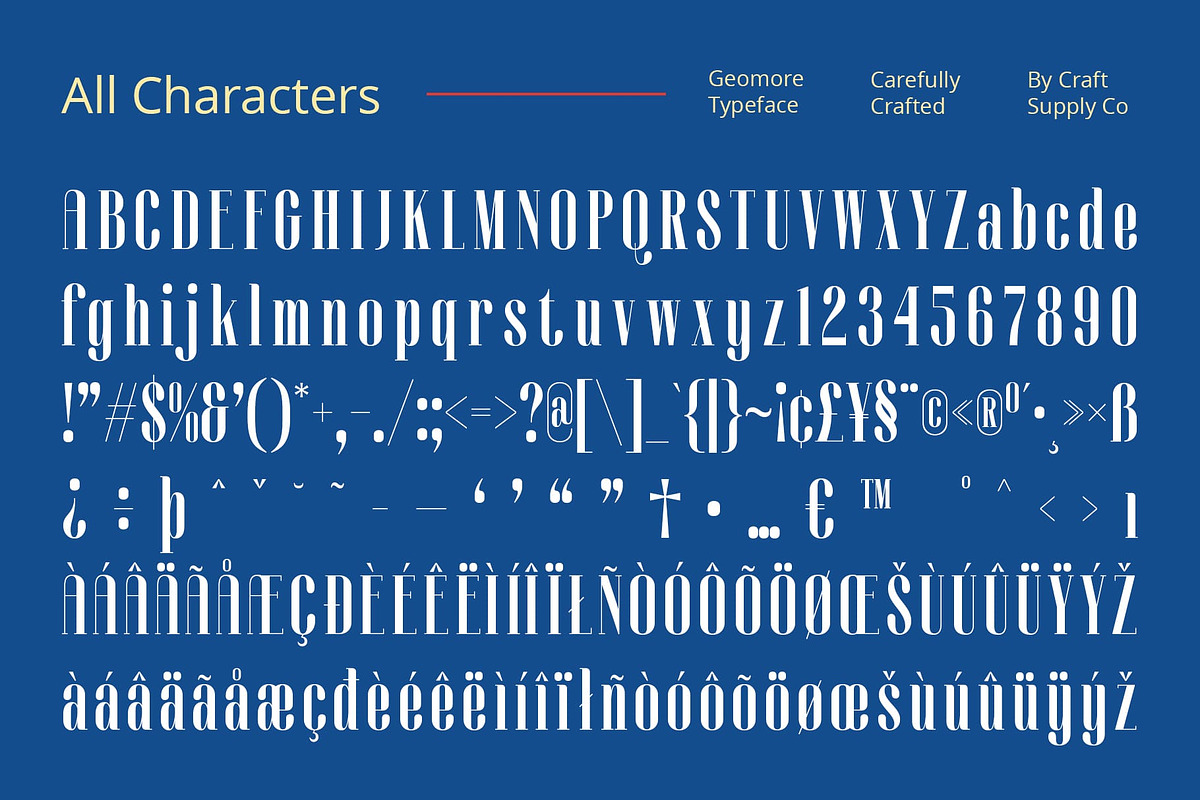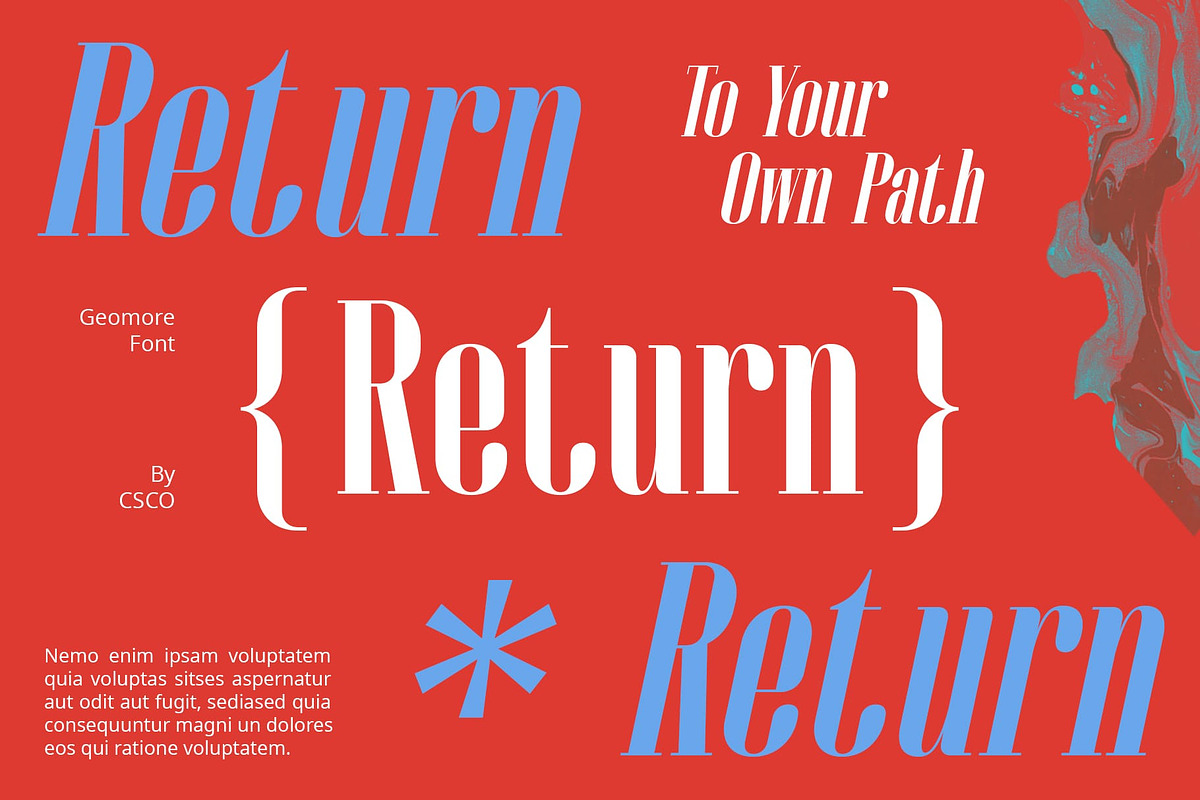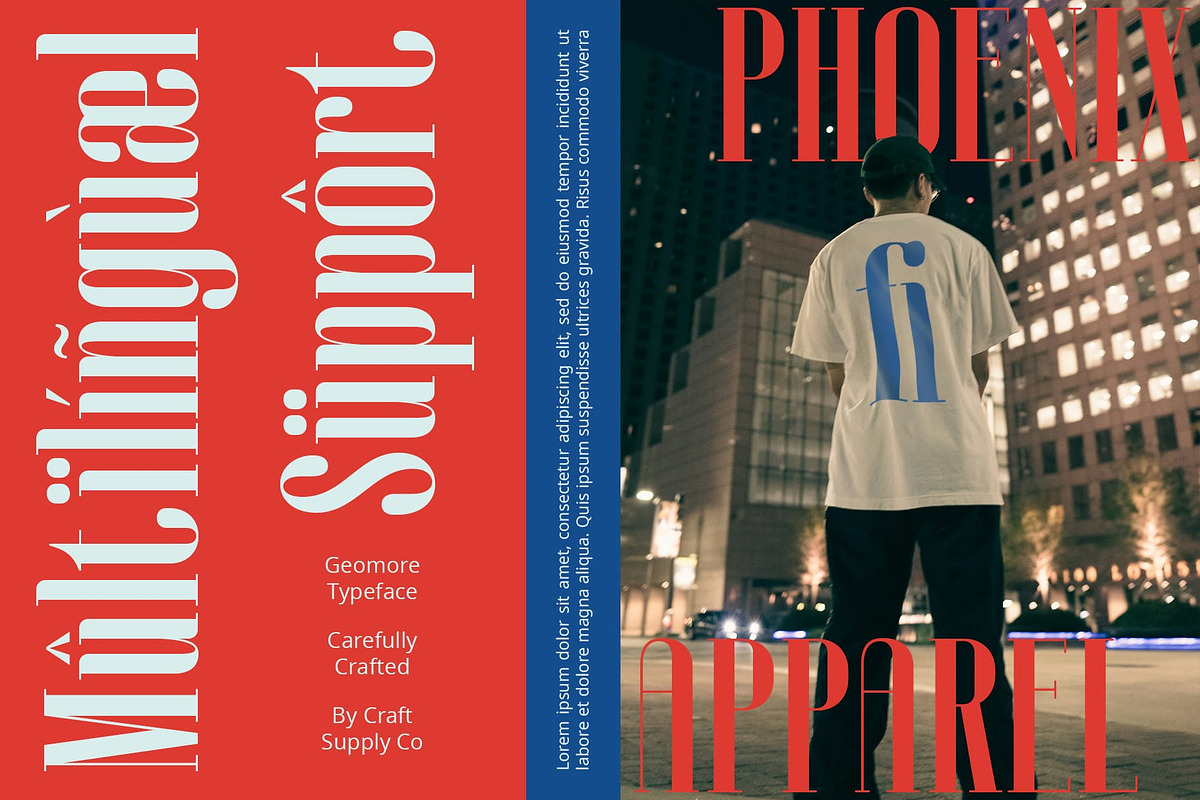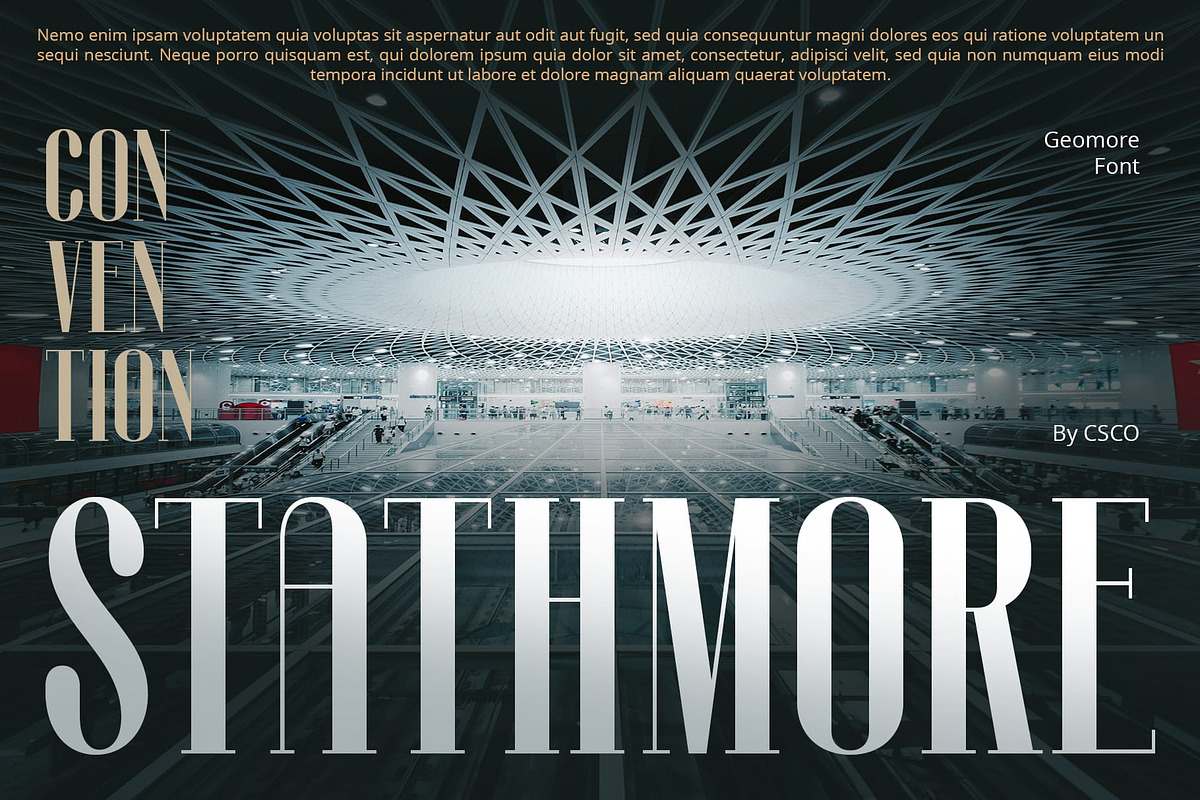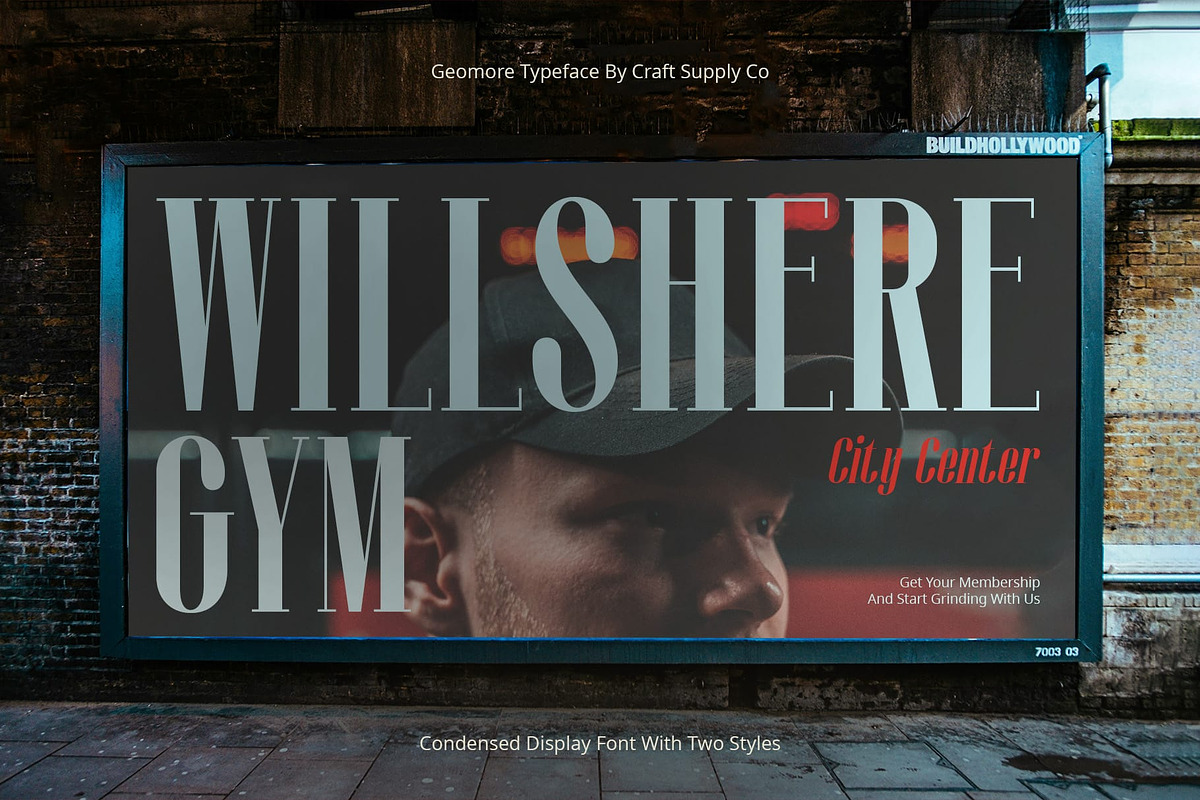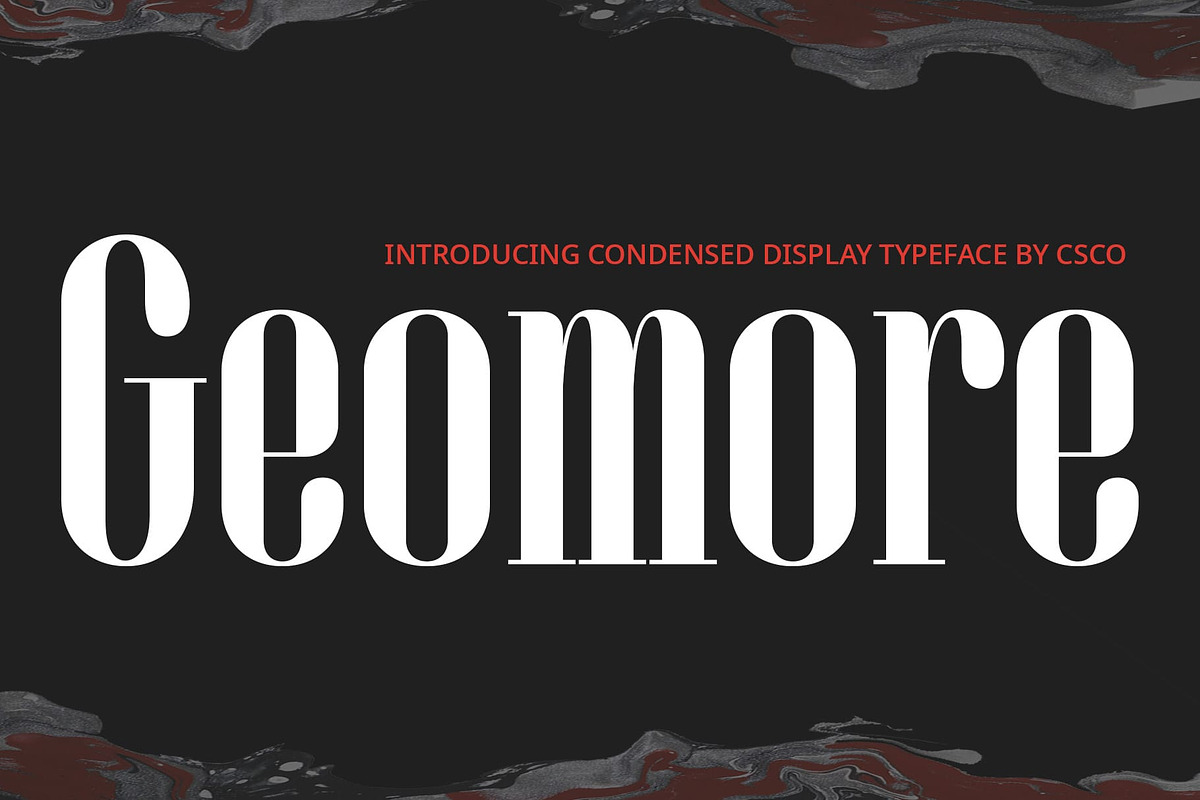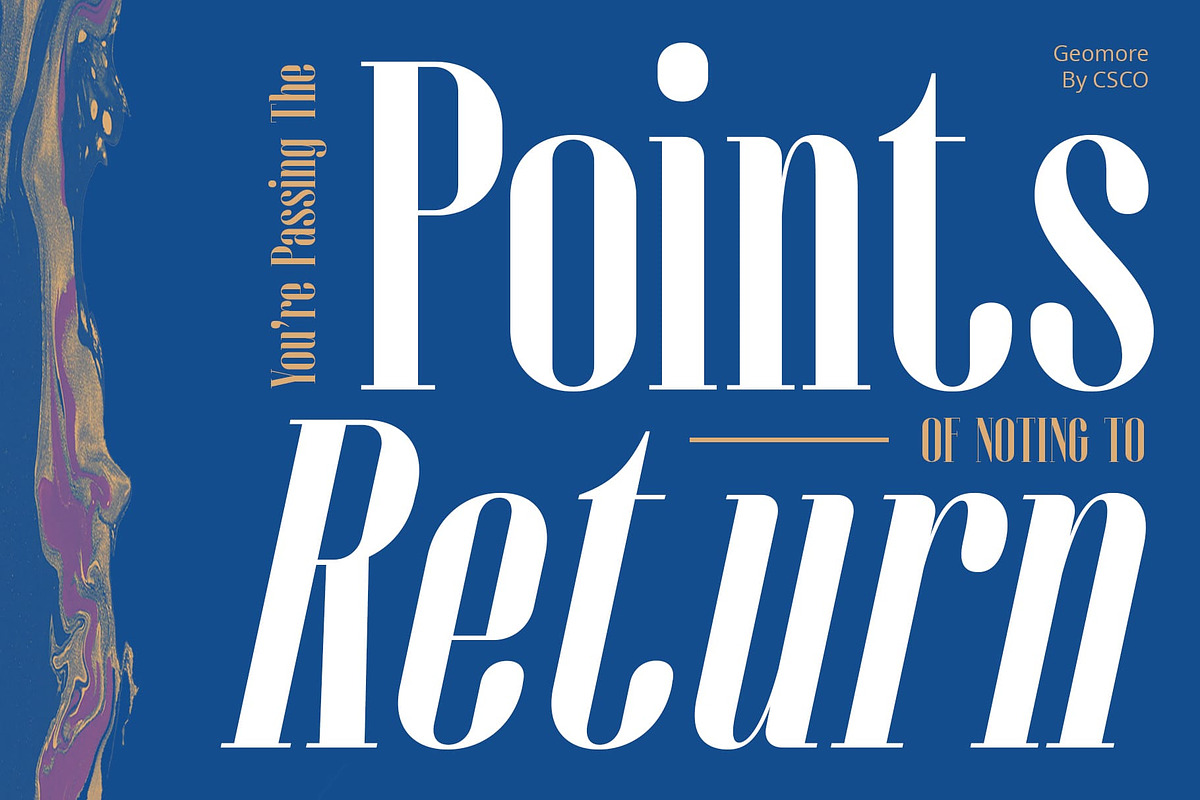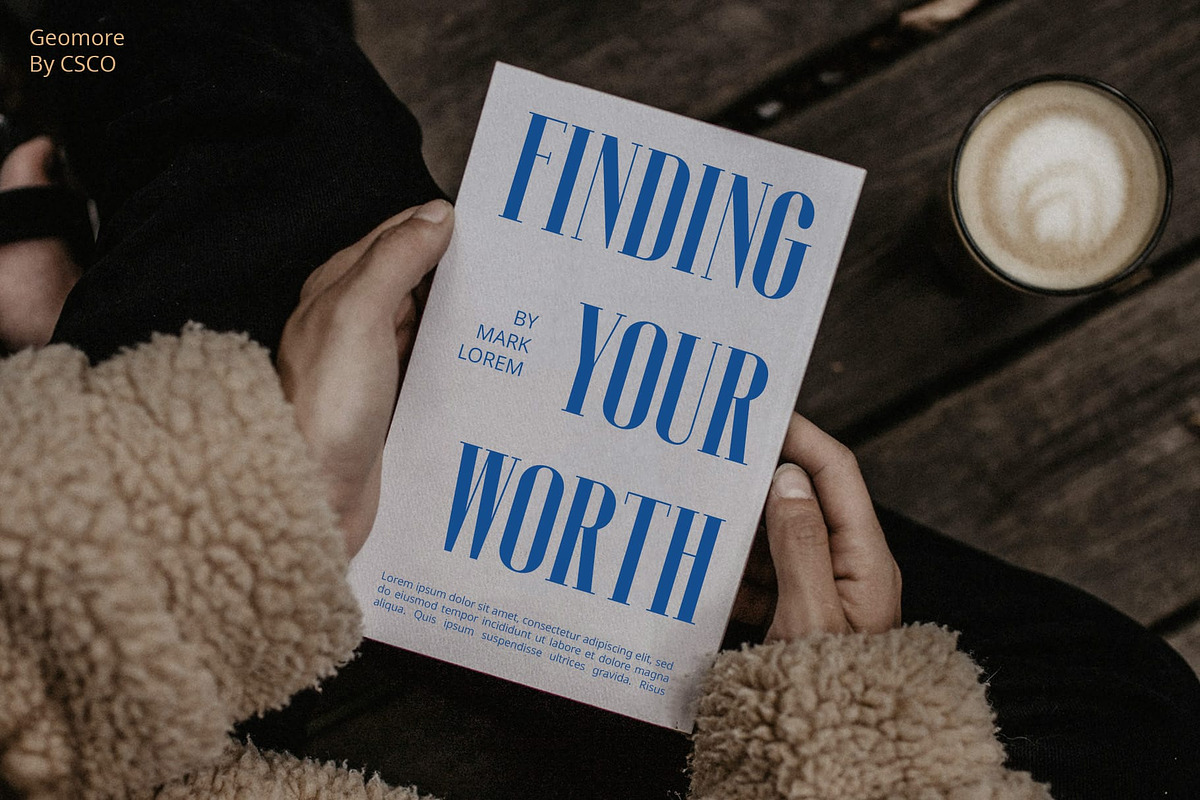
Geomore – Condensed Serif
Geomore – Condensed Serif: Bold and Condensed for Professional Impact
Striking Condensed Serif Geomore is a condensed serif font designed to make a bold impression in any corporate or organizational setting. Its strong, clean lines and condensed form create a commanding presence that ensures your designs stand out with professionalism and confidence.
Ideal for Corporate Use Geomore’s bold and condensed design is perfect for corporate and organizational use. Whether for company logos, business presentations, or official documents, this font adds a touch of authority and sophistication to your work.
Versatile and Powerful Despite its condensed form, Geomore maintains versatility across various design applications. From headlines and banners to branding and marketing materials, this font delivers a powerful visual impact that enhances your message.
Enhance Your Brand Identity Elevate your brand with Geomore’s bold serif design. Its unique combination of strength and elegance ensures that your brand identity is both memorable and professional, leaving a lasting impression on your audience.
Readable and Impactful Geomore balances readability with a bold presence, making it suitable for both digital and print media. Its precise letterforms ensure clarity and legibility, while its condensed style maximizes space efficiency without sacrificing impact.
- Geomore Regular
- Geomore Italic